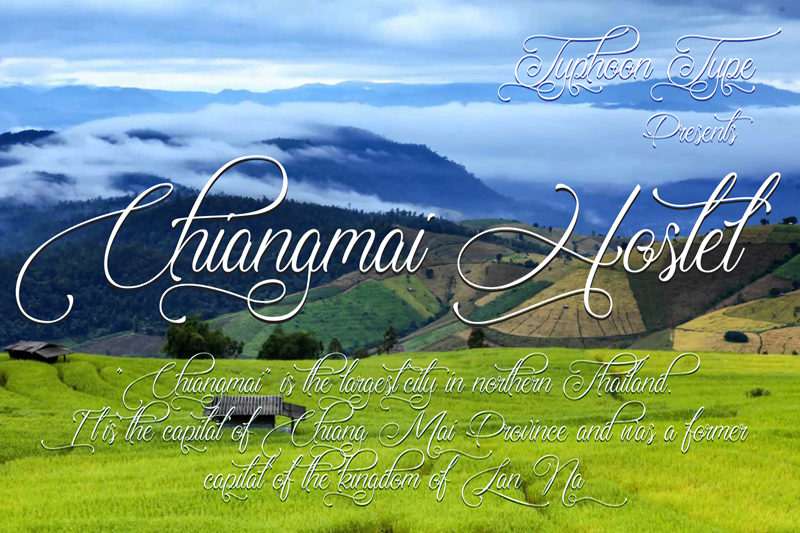
Chiangmai Hostel Font
Continue to introduce you a beautiful handwritten font. Introducing Chiangmai Hostel Font! Chiangmai Hostel designed and shared by Typhoon Type – Suthi Srisopha. This font is especially for you if you need to add tenderness to your project. Chiangmai Hostel Font covers a wide range of uses ranging from titles, logotypes, invitation cards, certificates and labels to small-sized texts.